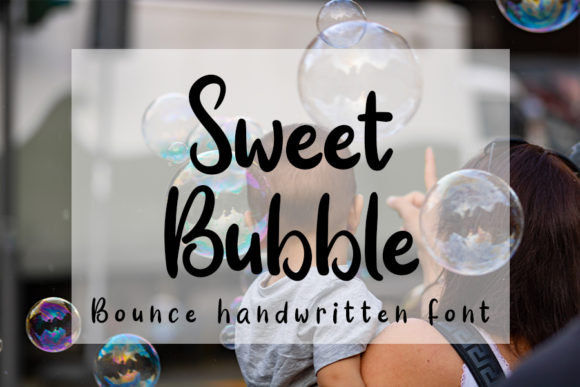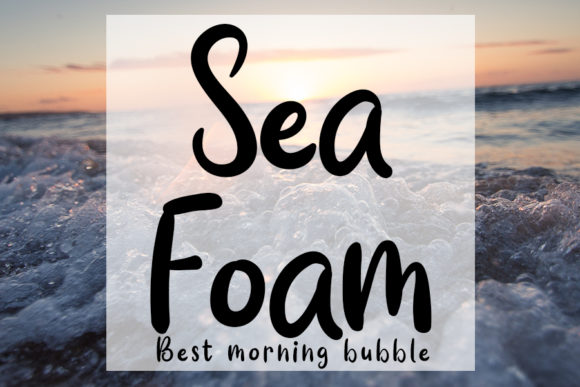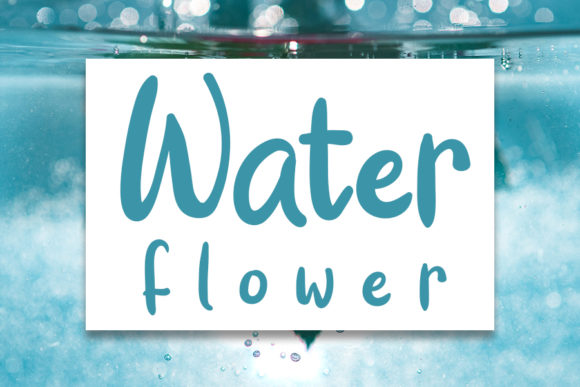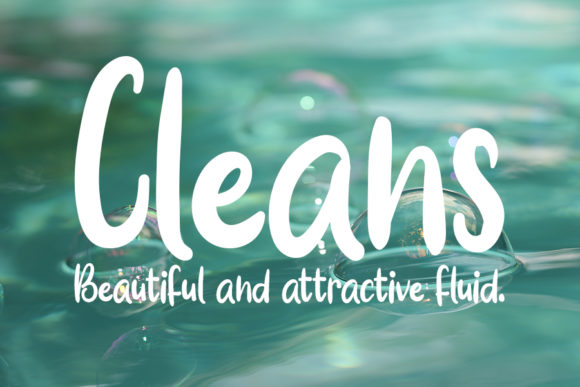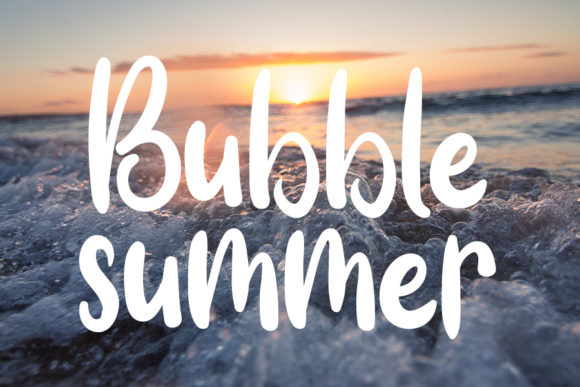
Sweet Bubble Font
About Sweet Bubble Font
Sweet Bubble is a timeless and relaxed handwritten font. Fall in love with its incredibly versatile style and use it to create gorgeous wedding invitations, beautiful stationary art, eye-catching social media posts, and much more!